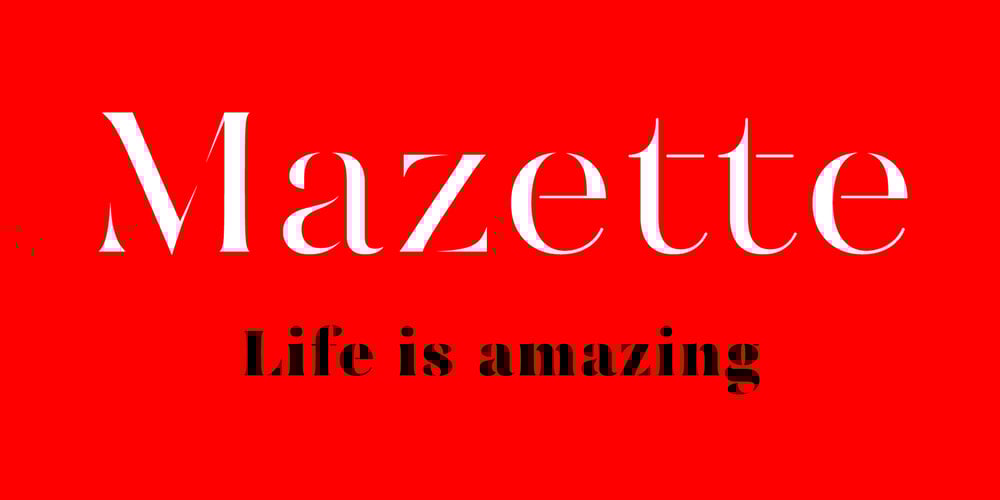
Mazette Font Family was designed by Bruno Bernard and published by Alfab. Mazette contains 5 styles and family package options. Mazette is a modern display typeface with a distinctive elegant look. Inspired by the refined forms of a nineteenth century Didot, Mazette offers the freedom to break contours in the manner that a stencil font would. Its sharp construction logic and great readability make it an ideal display font for publishing or branding.